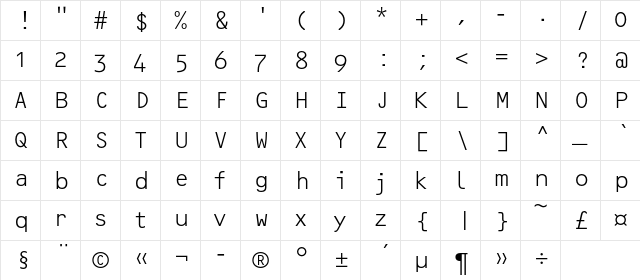
OCRF-LightOSFC Regular Font Preview
OCRF-LightOSFC Regular
Design Context for OCRF-LightOSFC Typeface
OCRF-LightOSFC is a composed and adaptable typeface that performs quietly and consistently across a wide range of design contexts. Its slender proportions lend an understated elegance to any composition.